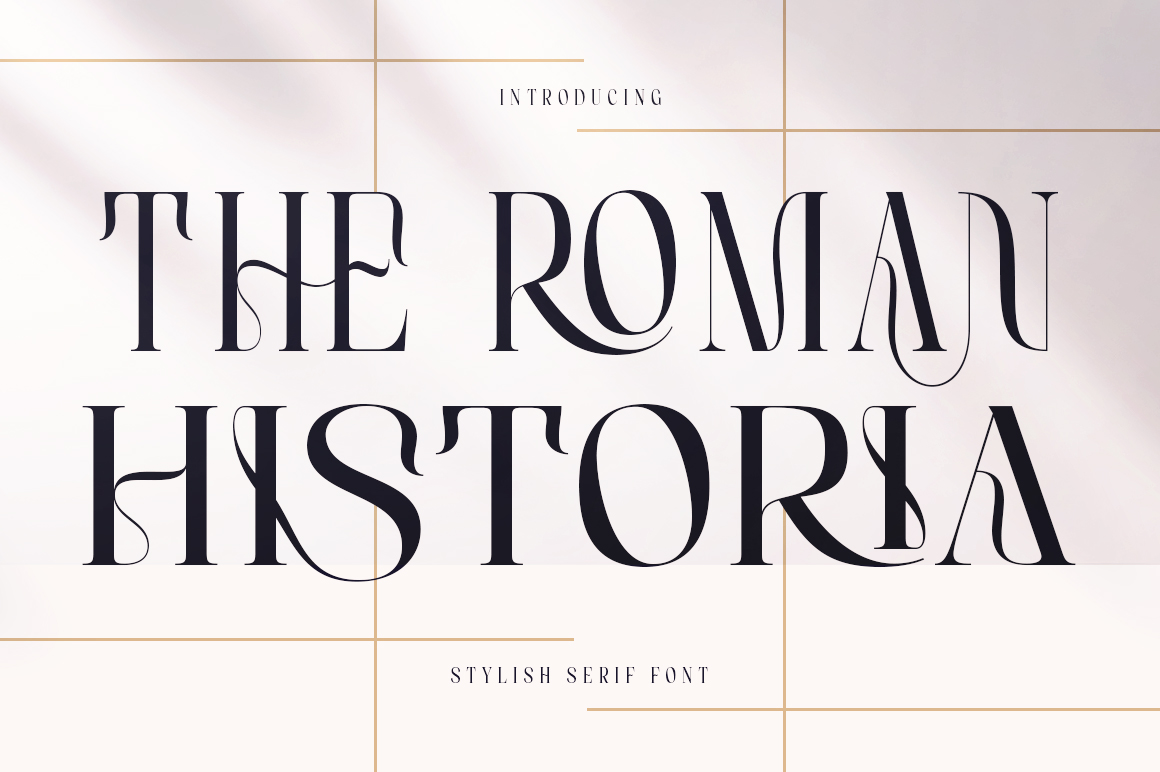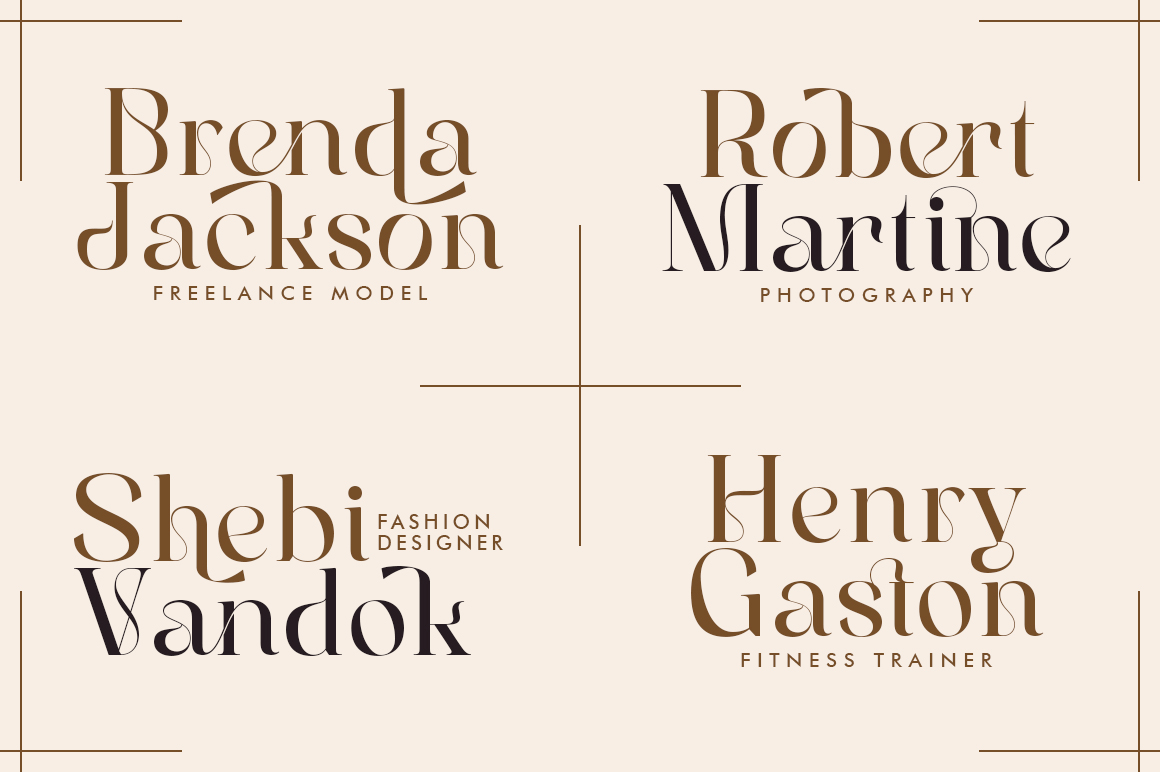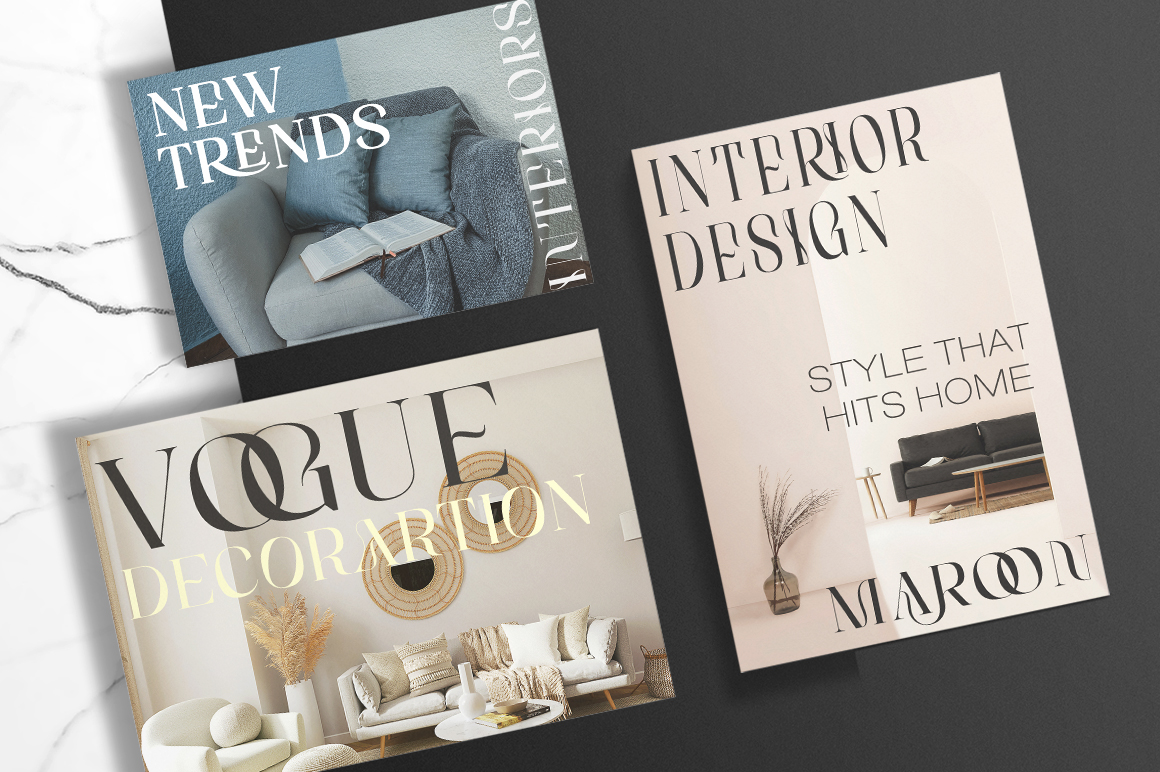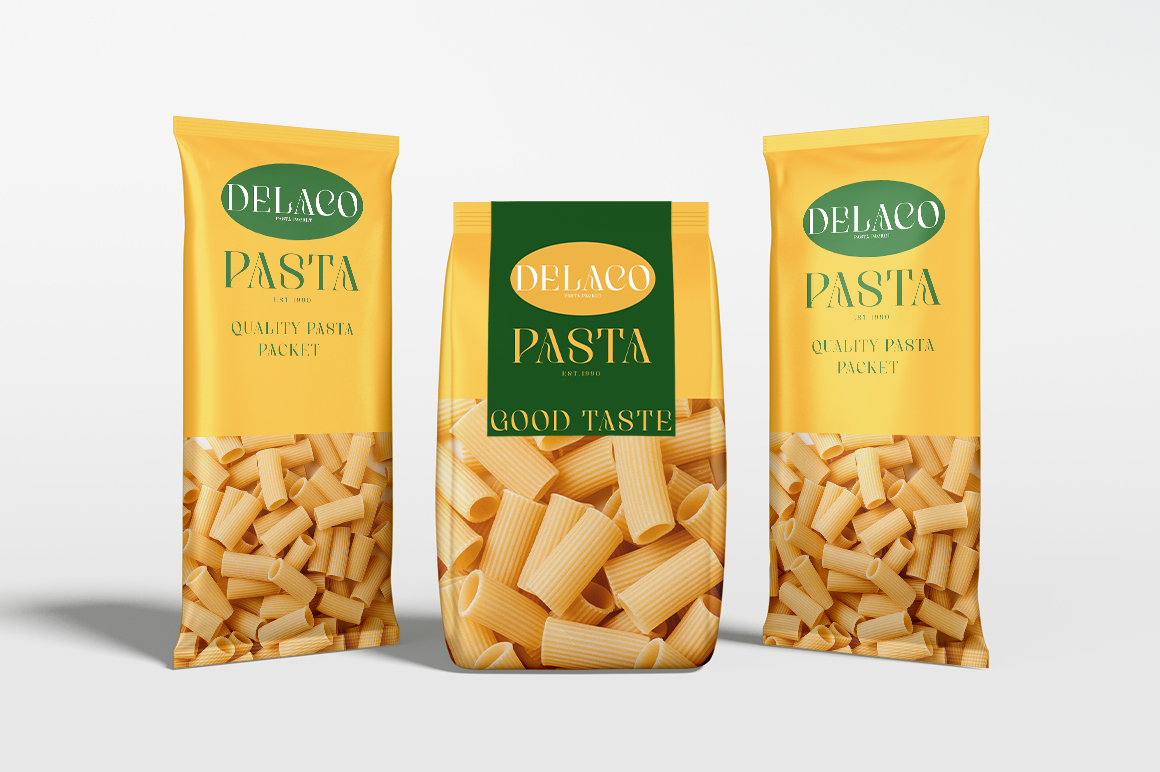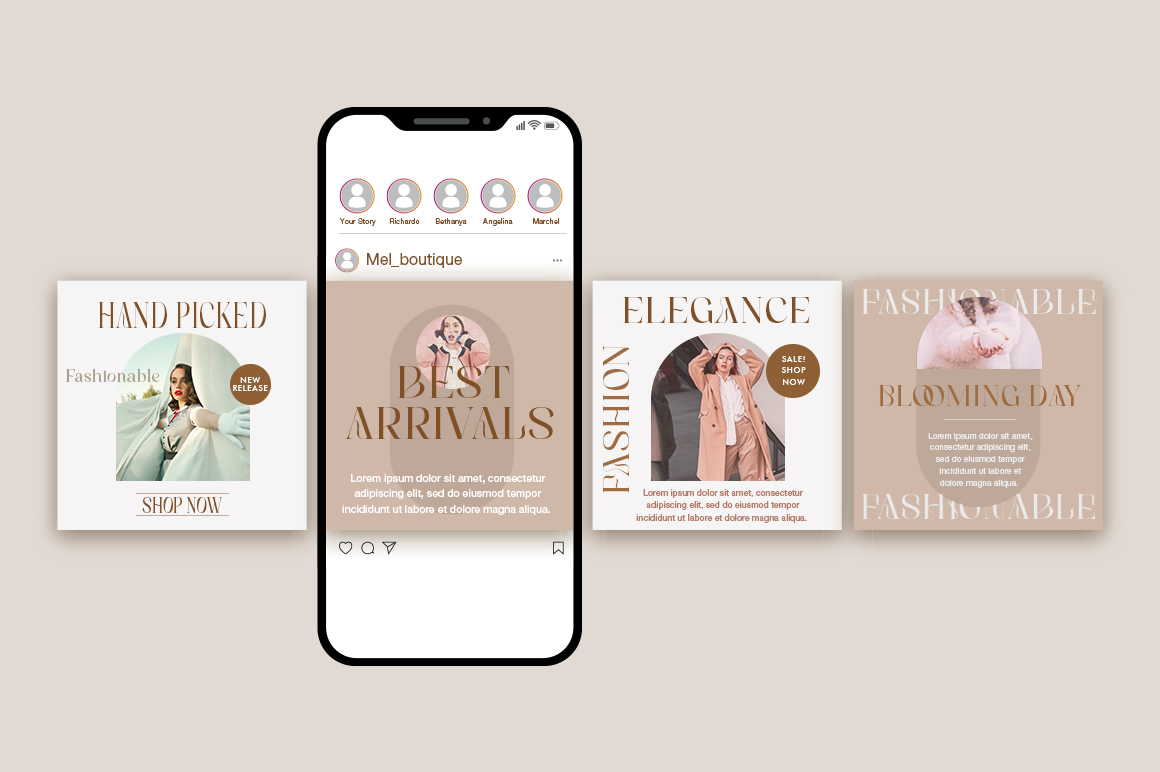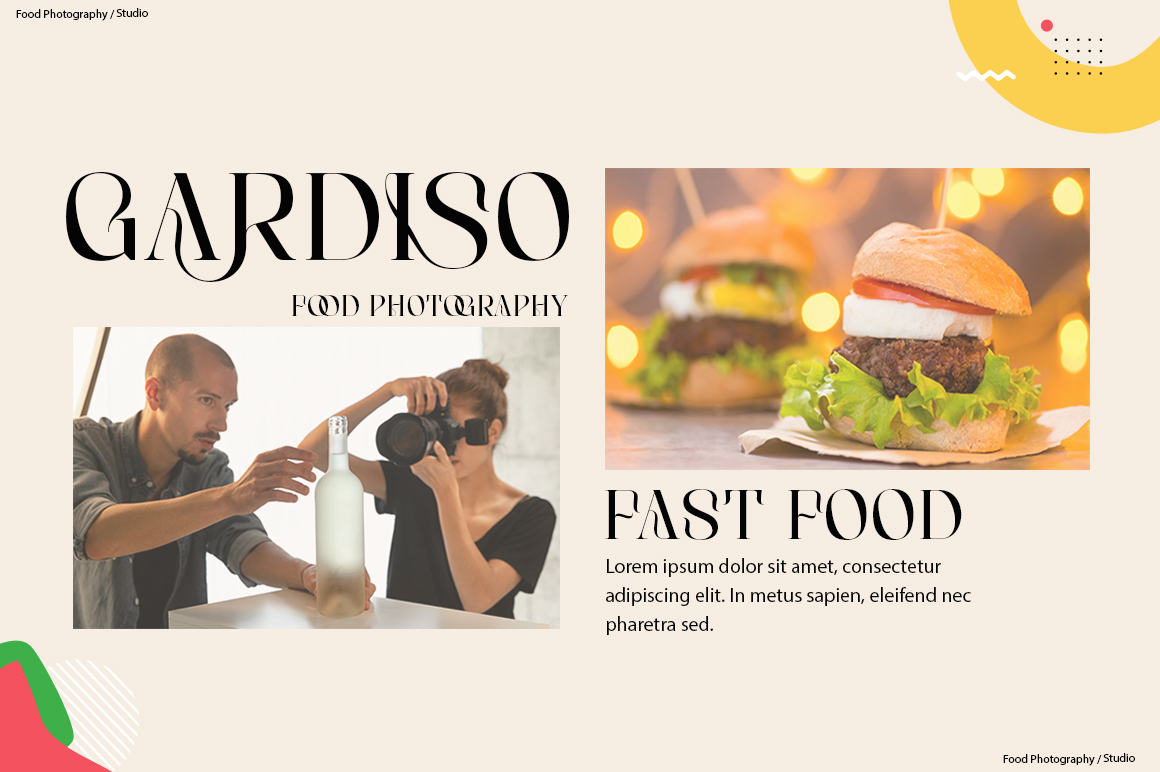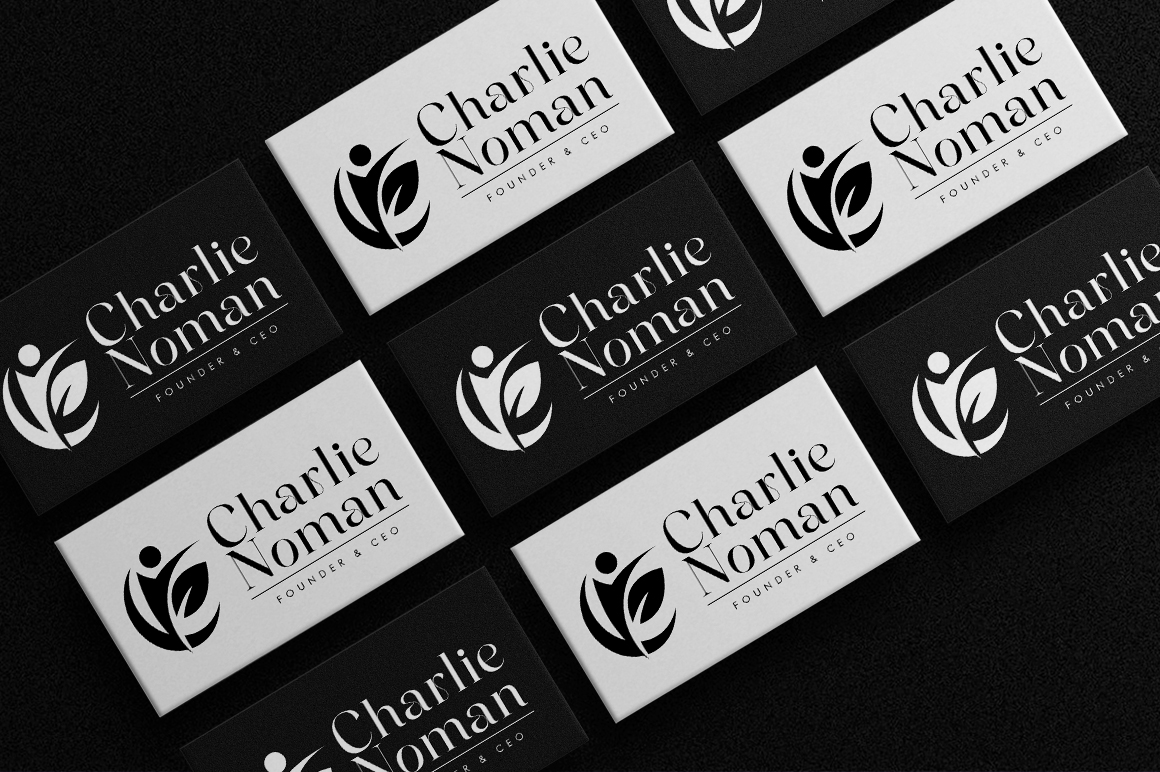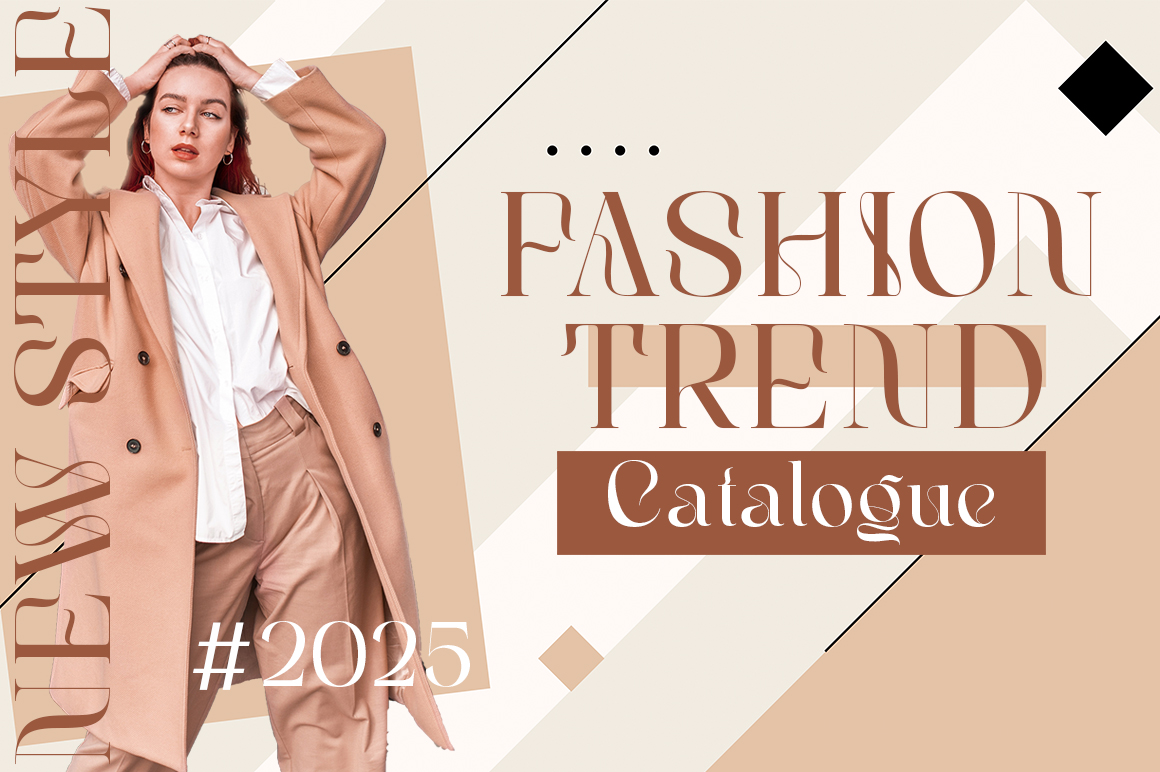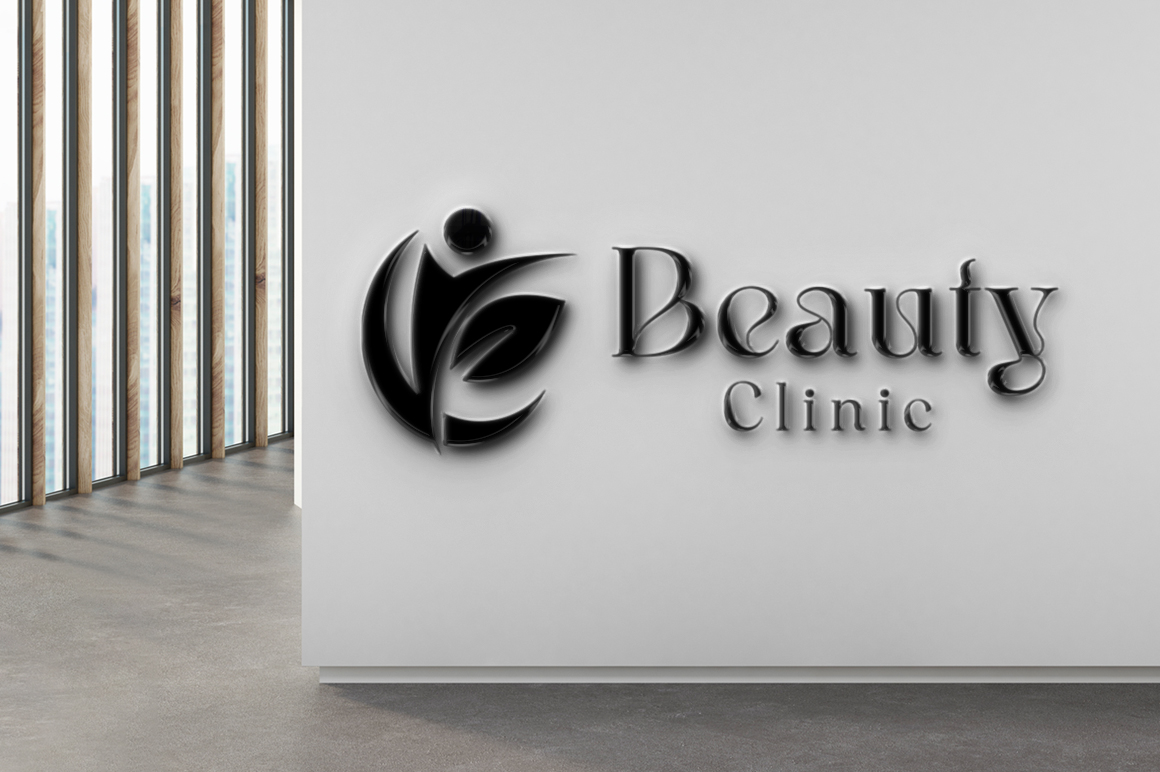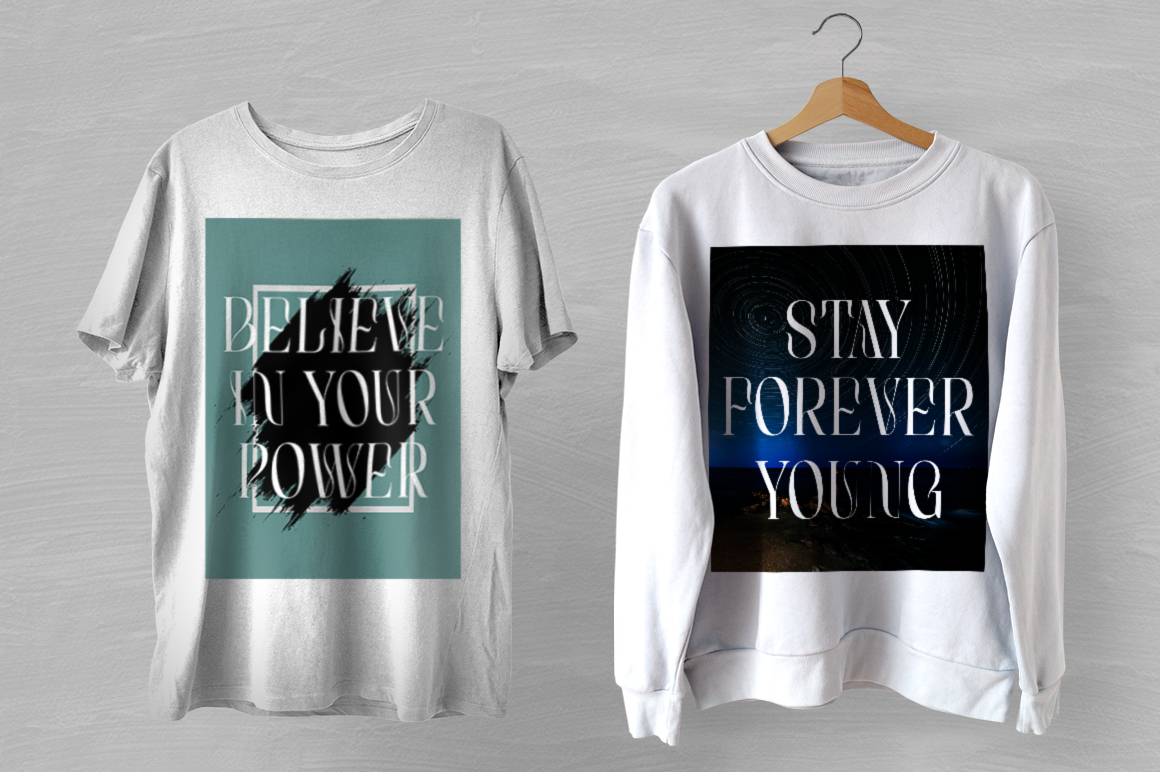
INTRODUCING The Roman Historia.
The Roman Historia is a stylish serif font that will make your design projects stand out and be stylish! The Roman Historia is crafted with care to ensure premium quality and a luxurious feel. Ligatures and alternatives make this typeface unique and stand out from typical serif fonts.
The Roman Historia is perfect for branding, logo designs, headlines, titles, magazines, name card, labels, product packaging, book titles, movie titles, fashions magazines or any other type of design.
- Alternative
- Ligatures